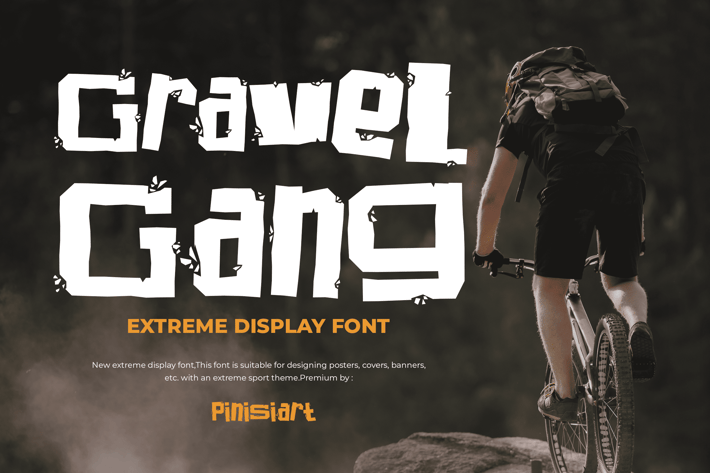
Gravel Gang - sporty font
Spitting tones, the sound of grinding gravel road crush by the bicycle. This is what extreme sport world needed.
Suit perfectly for Online Games, poster, movie title, fast food menu, magazine, youtube covers, youtube thumbnails, social media page covers and so on...